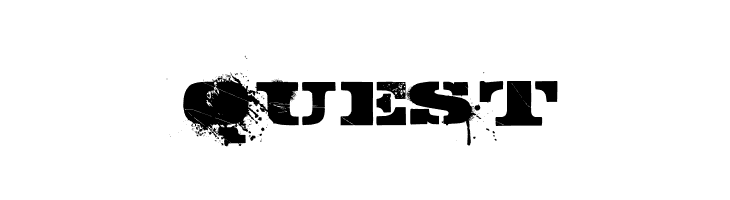
Black Melody - Personal Use Font
- Font: Black Melody - Personal Use
( Fonts by billyargel.blogspot.com - Billy Argel )
A bold, distressed font with a grunge aesthetic and uniform uppercase characters.